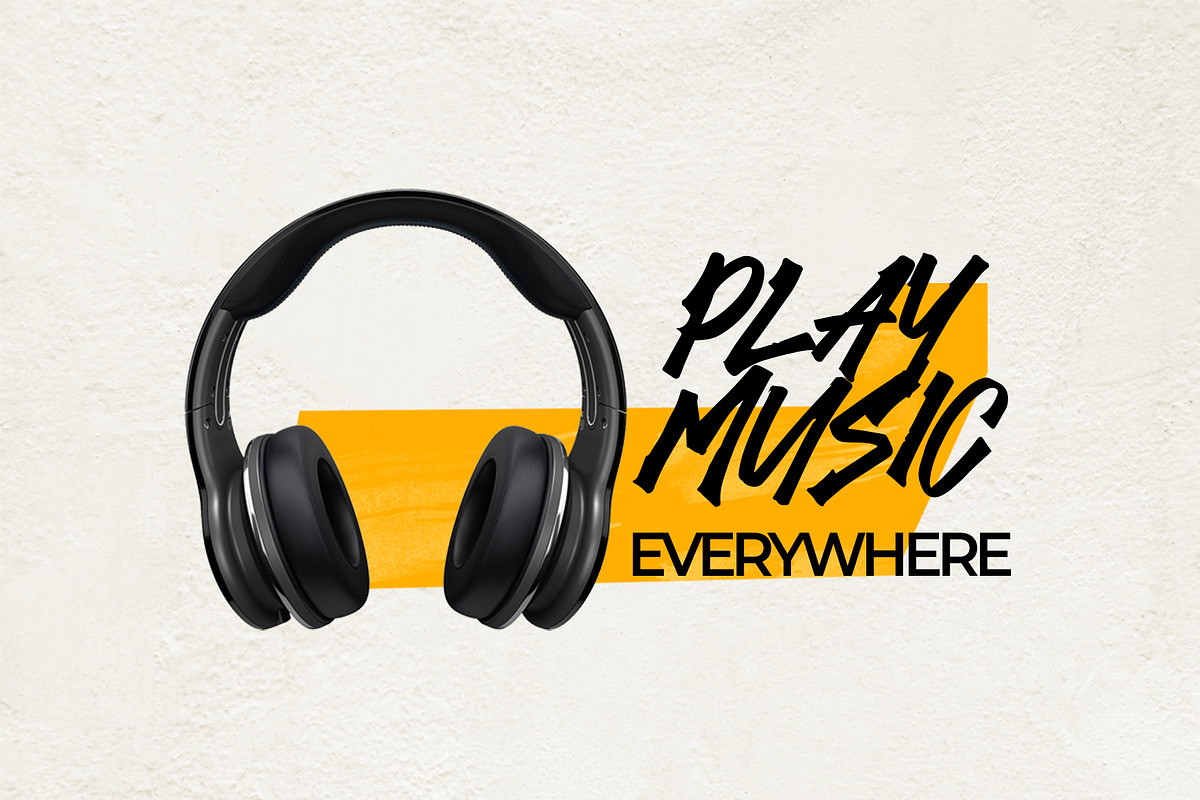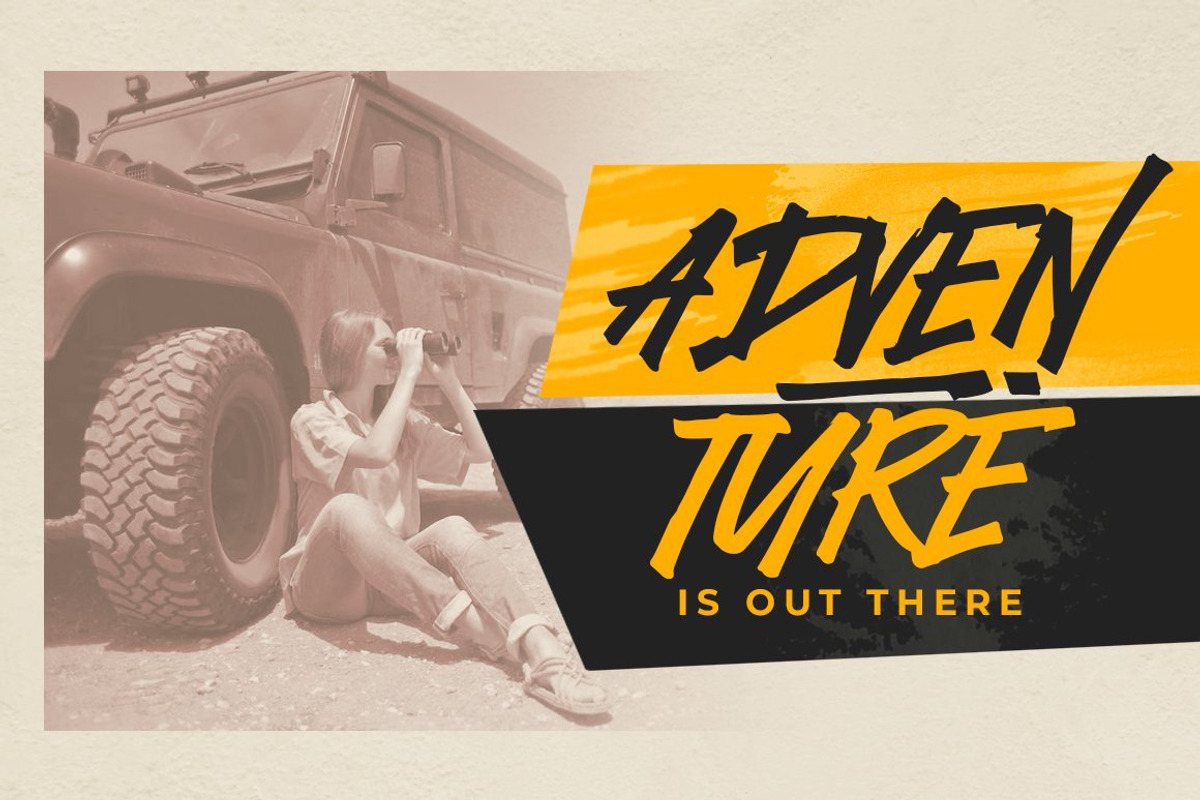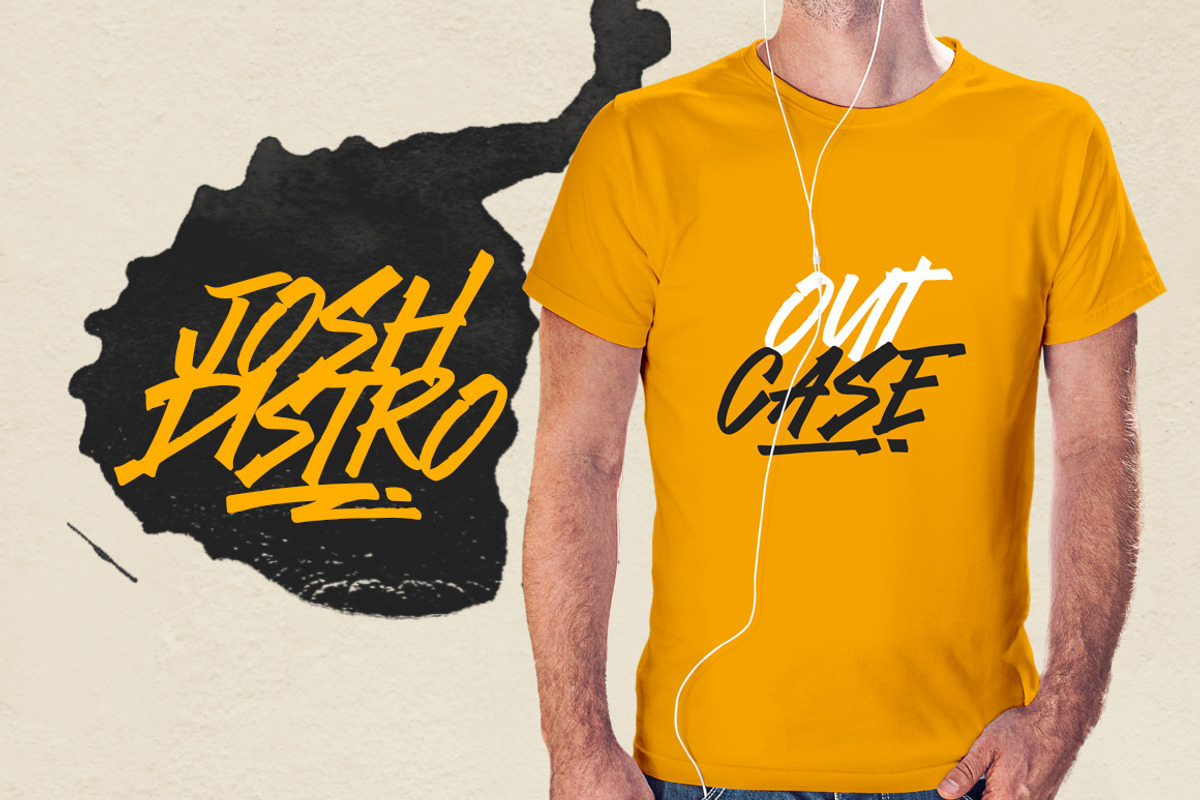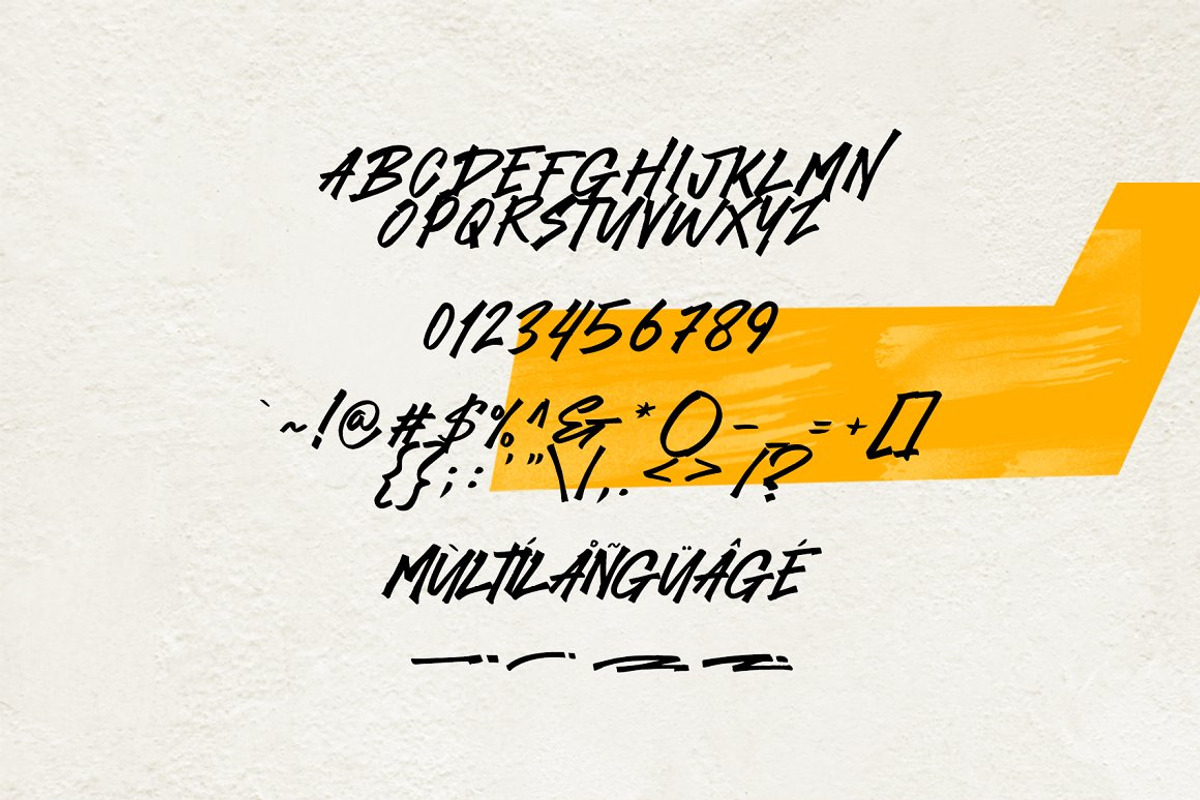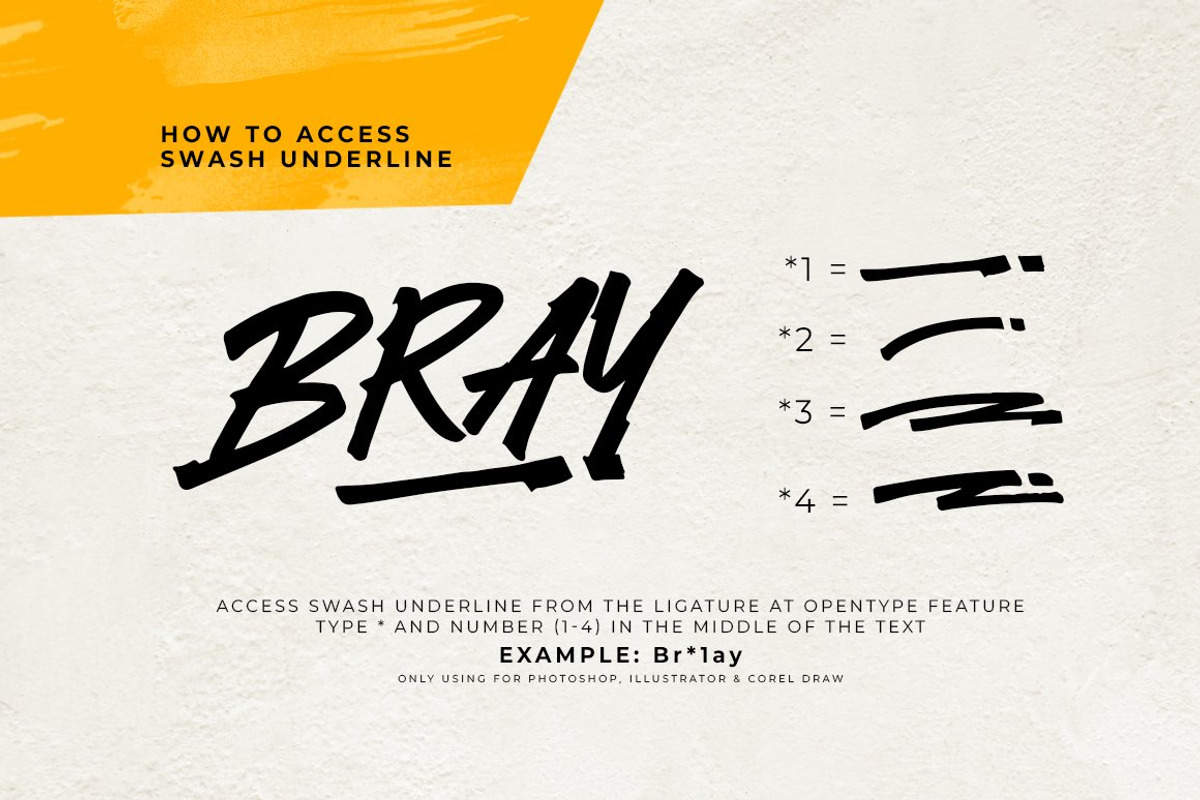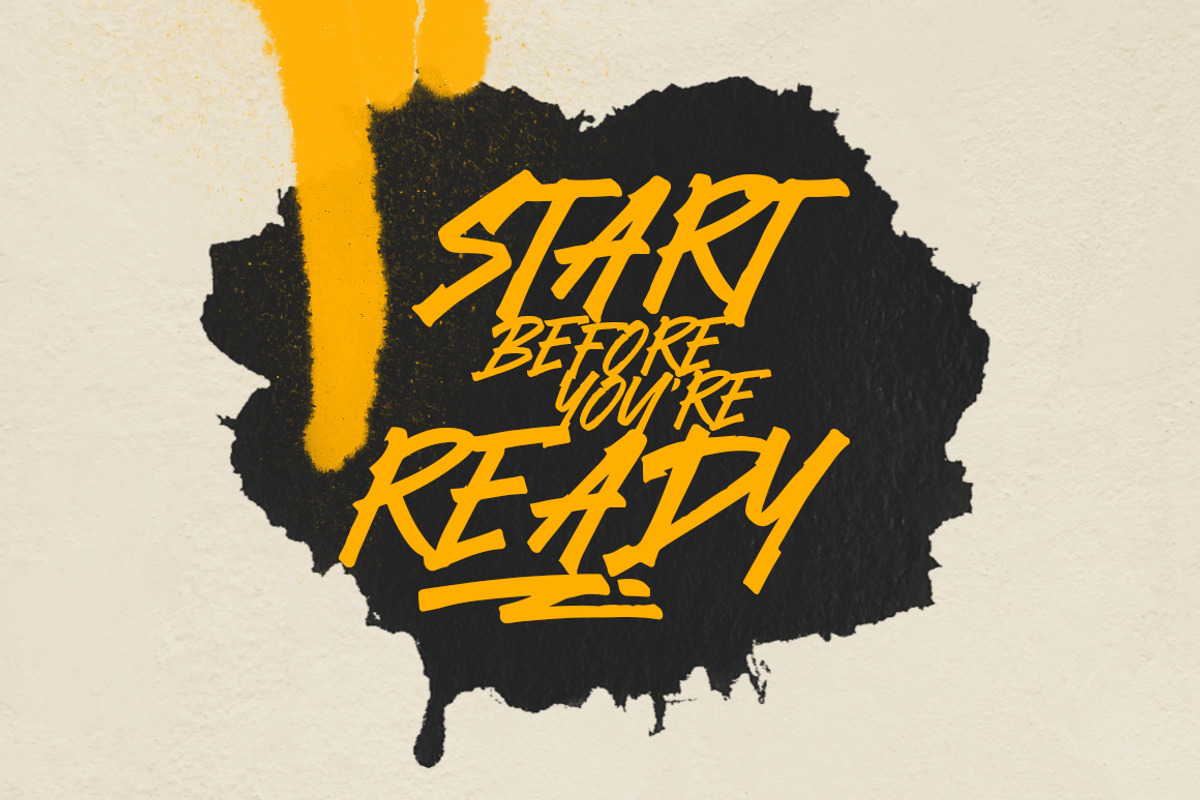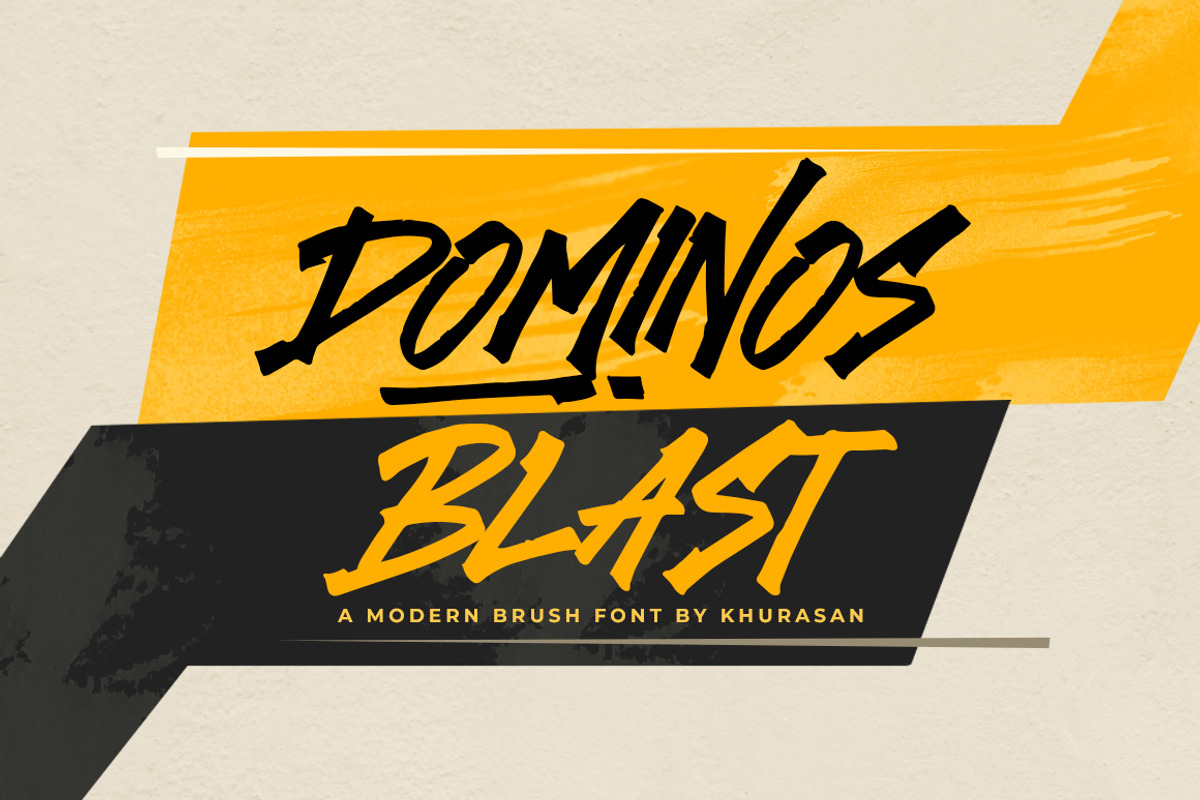
Dominos Blast
Dominos Blast is a modern brush font. Dominos Blast font suitable for logo, branding, greeting card, poster and any design that you create…!